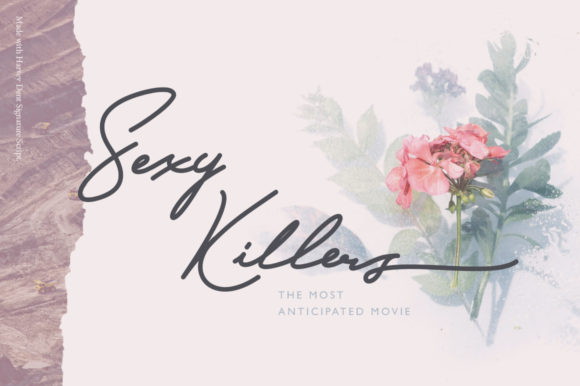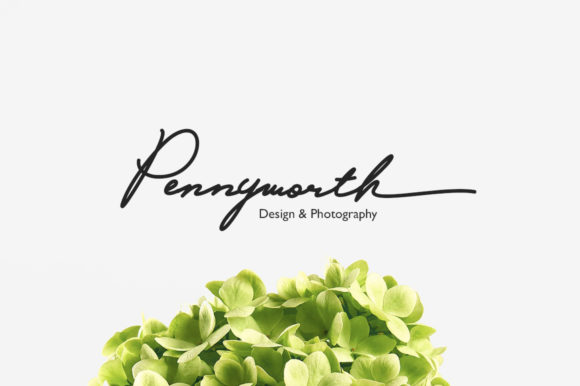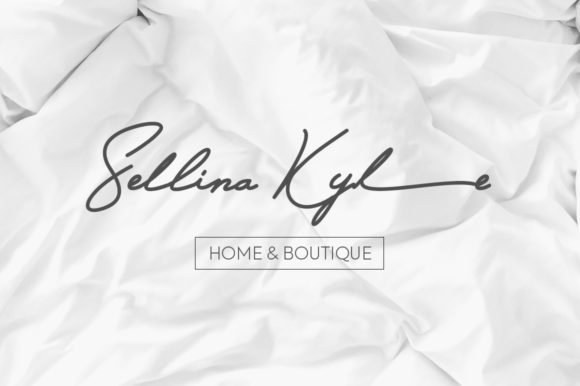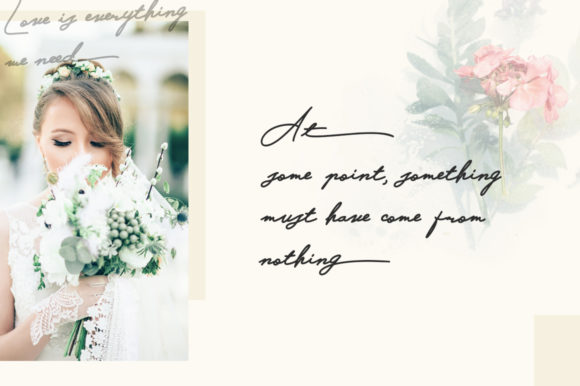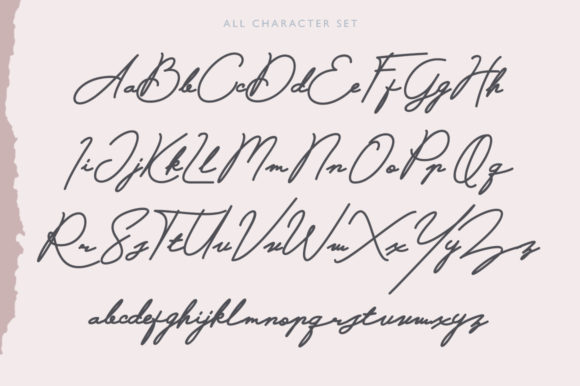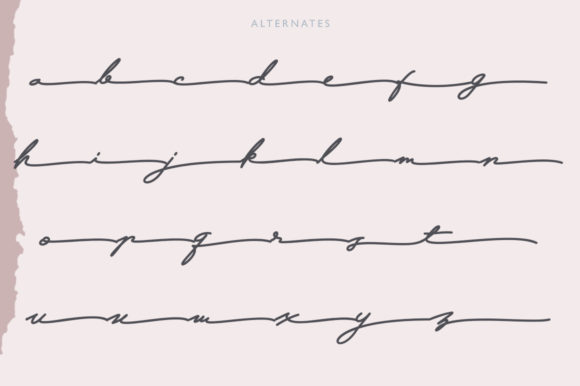
Discover the Elegance of Harvey Dent Font: A Versatile Handwritten Typeface
In the realm of typography, few fonts manage to strike a balance between elegance and versatility. Harvey Dent, an exquisite handwritten font, is one such gem that has captured the hearts of designers and crafters alike. Its flowing and relaxed style makes it an incredibly adaptable typeface, suitable for a wide variety of designs. In this article, we’ll delve into the world of Harvey Dent Font, exploring its characteristics, uses, and the creative possibilities it offers.
The Essence of Harvey Dent Font
Harvey Dent Font is a masterpiece of handwritten typography, characterized by its elegant and distinct letterforms. Each glyph is crafted with precision, showcasing a flowing script that exudes sophistication and refinement. The font’s relaxed style gives it a friendly and approachable feel, making it perfect for designs that require a touch of personality and warmth.
Versatility Unleashed
One of the standout features of Harvey Dent Font is its versatility. Its unique blend of elegance and informality makes it suitable for a wide range of design applications. Whether you’re working on a:
- Wedding invitation: Add a touch of romance and sophistication with Harvey Dent’s flowing script.
- Branding project: Establish your brand’s identity with a font that’s both elegant and approachable.
- Packaging design: Elevate your product’s packaging with a font that’s sure to stand out.
- Digital platform: Use Harvey Dent to create engaging and visually appealing content for your website or social media channels.
The font’s adaptability is a result of its carefully crafted design, which allows it to seamlessly integrate into various design contexts. Whether you’re aiming for a classic, vintage look or a modern, trendy feel, Harvey Dent Font can be tailored to suit your creative vision.
Design Inspiration with Harvey Dent Font
To truly appreciate the potential of Harvey Dent Font, let’s explore some design inspiration ideas that showcase its capabilities:
- Monograms and logos: Use Harvey Dent to create stunning monograms and logos that exude elegance and sophistication.
- Typography-focused designs: Create visually striking typography-focused designs that highlight the font’s unique characteristics.
- Watercolor and hand-drawn designs: Combine Harvey Dent with watercolor or hand-drawn elements to create beautiful, one-of-a-kind designs.
Tips for Working with Harvey Dent Font
To get the most out of Harvey Dent Font, here are some valuable tips to keep in mind:
- Experiment with font sizes: Find the perfect balance between font size and design context to maximize impact.
- Play with color: Use Harvey Dent to create stunning color combinations that elevate your design.
- Add texture and patterns: Combine Harvey Dent with texture and patterns to add depth and visual interest to your design.
| Font Name | Harvey Dent Font |
| Author | EighteenStudio |
Harvey Dent Font is a true gem in the world of typography, offering a unique blend of elegance, versatility, and creativity. Whether you’re a designer, crafter, or simply someone who appreciates beautiful typography, this exquisite handwritten font is sure to inspire. With its flowing and relaxed style, Harvey Dent Font is the perfect choice for a wide range of design applications. So why wait? Discover the possibilities of Harvey Dent Font and take your designs to the next level.